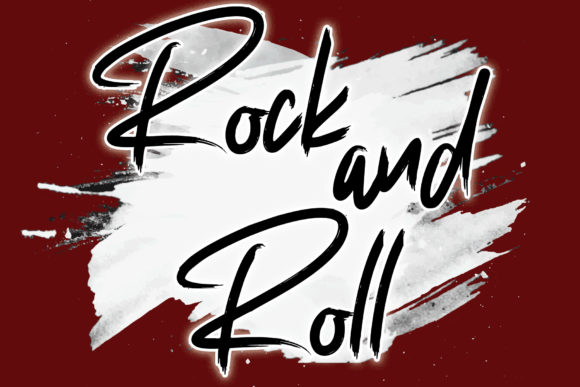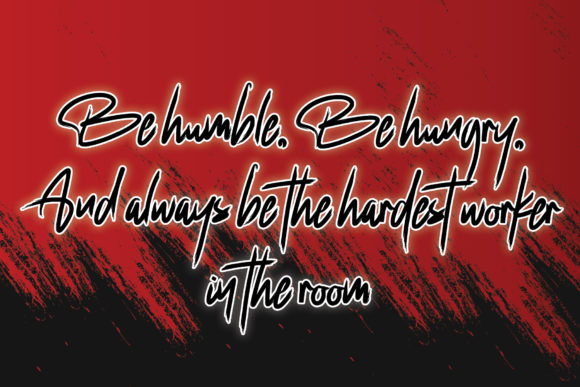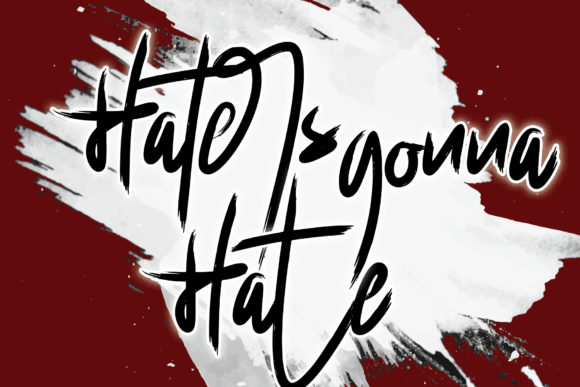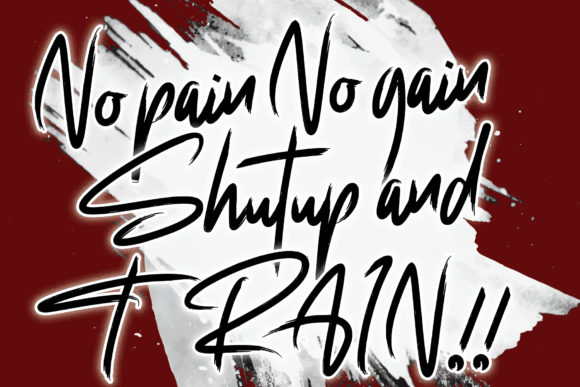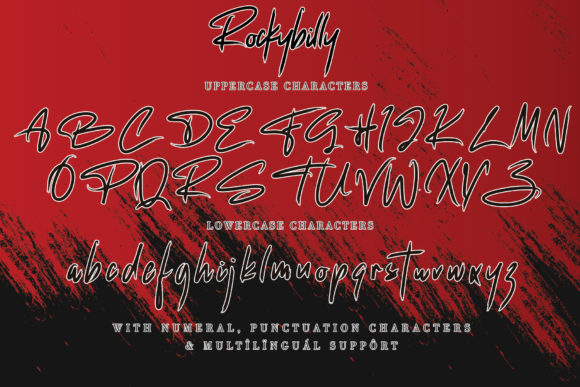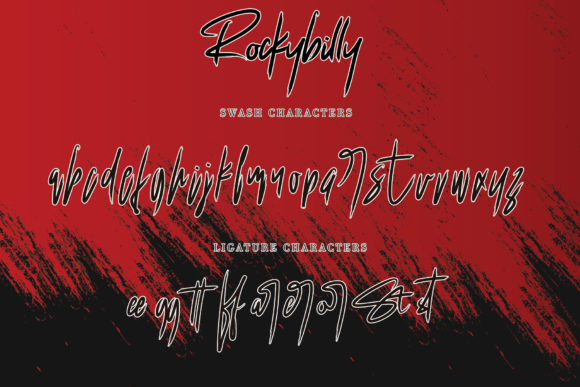
Introduction to Rockybily Font
Have you ever been in the middle of a creative project, staring at a blank canvas, and suddenly, a spark of inspiration strikes? For designers, this moment is a treasure. It’s the moment when everything comes together, and the design starts to take shape. One of the key elements that can make or break a design is the font. And that’s where the Rockybily Font comes in – a super handwritten brush font that’s bursting with energy and modern charm.
With its high-quality design, the Rockybily Font is a valuable resource for designers looking to add a unique touch to their projects. Whether you’re working on a free download or a paid design, this font is sure to impress. Plus, its transparent background makes it easy to use and manipulate, giving you the freedom to experiment with different designs.
Key Features of Rockybily Font
- High-quality, unique design for creative projects: The Rockybily Font is designed to add a touch of elegance and sophistication to any project, making it perfect for designers and artists looking for a distinctive font.
- High-resolution design: The Rockybily Font is designed at a high resolution, ensuring that it looks crisp and clear on a variety of devices and screen sizes.
- Perfect for digital design: The font’s modern and sleek design makes it perfect for digital design projects, including website design, social media graphics, and more.
Honest Review: Rockybily Font
I recently stumbled upon the Rockybily Font while searching for a unique design resource for my creative project. As a designer, I was excited to dive in and see if this font would meet my expectations.
- ✨ Unique and creative style that sets it apart from other fonts
- ✨ High quality design with crisp lines and clear typography
- ⚠️ Limited character set, which may not be suitable for projects requiring extensive text content
- ⚠️ Transparent background, which may require additional design work to accommodate certain layouts
Overall, I’m impressed with the Rockybily Font. It’s a great addition to any designer’s toolkit, and I can see it being used effectively in a variety of creative projects. With a little creativity and workarounds for the limitations, I think this font has a lot of potential.
Tips for Getting the Most Out of Rockybily Font
To get the most out of the Rockybily Font, use it for high-quality creative projects that require a unique and eye-catching design. The font’s transparent background makes it perfect for designing graphics with a clear and clean look.
The Rockybily Font is commonly used for designing logos, social media graphics, and promotional materials. Its high-quality design and transparent background make it an ideal choice for any creative project that requires a professional and modern look.